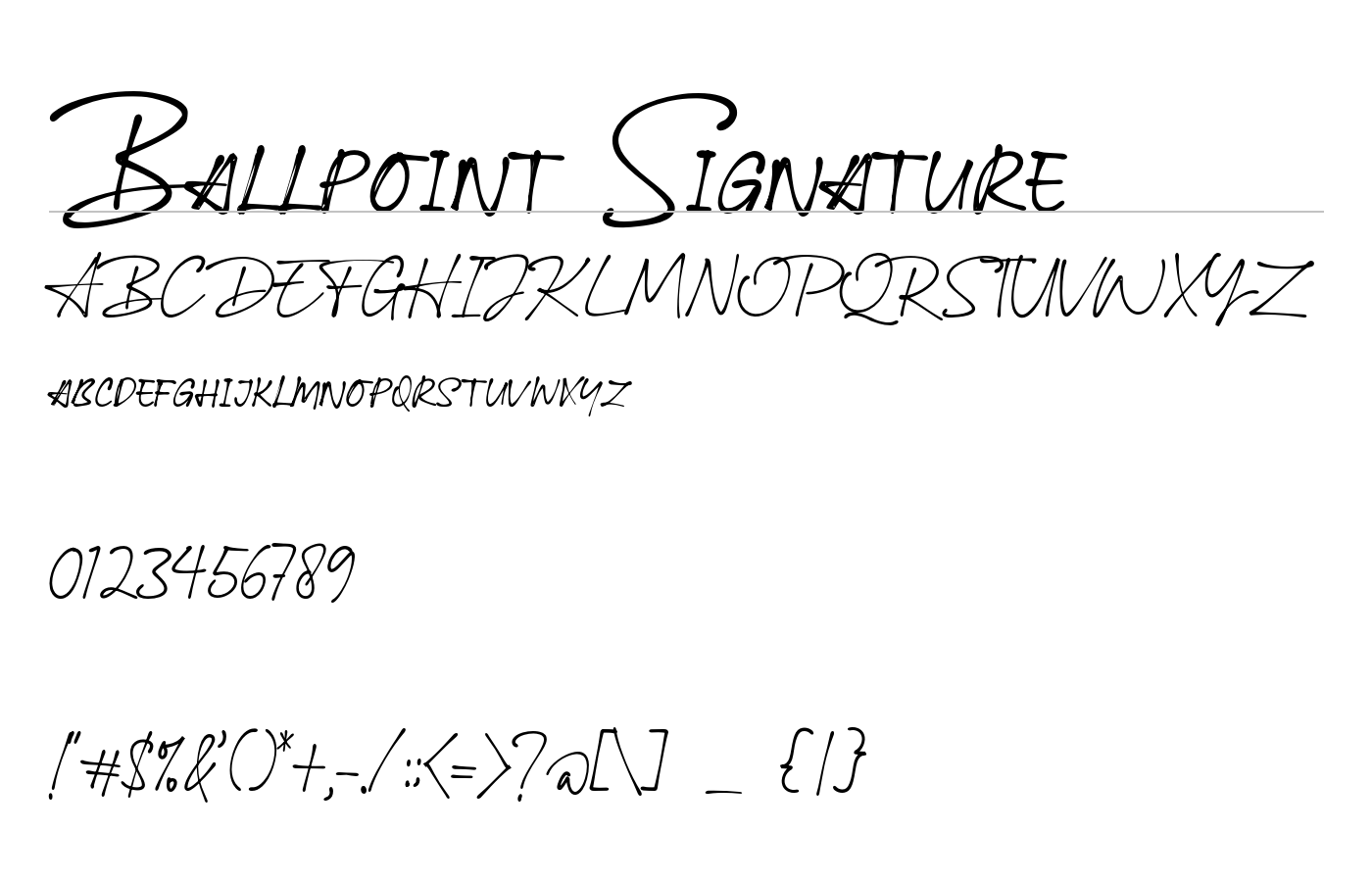
Ballpoint Signature Font is a playful and energetic handwritten script that mimics the casual flow of ballpoint pen writing with a unique, personal touch. Its thin, variable strokes and loosely connected uppercase letters create an informal yet distinctive style, ideal for branding, creative projects, and invitations seeking a friendly and authentic feel. This font works well in logos, posters, and packaging where a natural and approachable handwritten look is desired.
Ballpoint Signature Font
About Ballpoint Signature Font
| Font family | Ballpoint Signature Font |